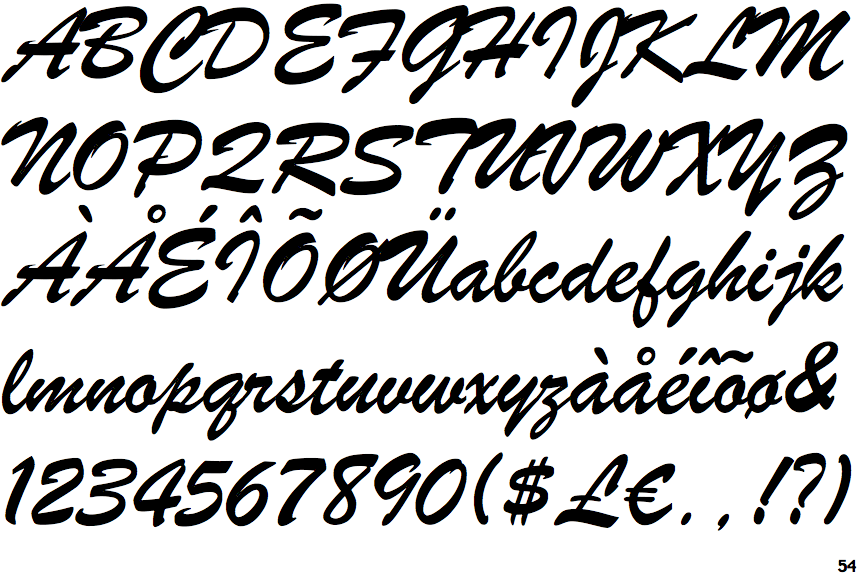
Simple Commonly Used Cursive Fonts In Graphic Design, Alex brush is connected brush script font. It can be used with various designs ranging from greeting card designs to feminine logo.
The Best Free Alternatives to the Most Popular Fonts Popular fonts Most significantly, script fonts typically use cursive letters while handwritten fonts may or may not be in cursive.
It support multilingual more than 100+ language. A handwritten and extended font that's been designed with calligraphic texts. Designers choose slab serif fonts for brand logos, magazines, posters, and websites to attract users. Use cursive fonts as accents to your texts!
Most significantly, script fonts typically use cursive letters while handwritten fonts may or may not be in cursive. Script typefaces are derived from the fluid, and varied strokes that are representative of handwriting. Cursive fonts are a great way to use as accents to add warmth and elegance to your designs. Daniela is a beautiful cursive font featuring a casual and trendy design. Sarcastic Saturday commentary on 5 more commonly used fonts.
Whether you opt to keep it on a solid color or pair it with photography, it brings an air. Cursive fonts are a great way to use as accents to add warmth and elegance to your designs. Designers choose slab serif fonts for brand logos, magazines, posters, and websites to attract users. Also, while script fonts resemble handwriting,. 1420 Gothic Script Fonts.
Helvetica (max miedinger, 1957) helvetica is arguably the most famous typeface on the planet. The font is perfect for everything from label designs to logos and greeting cards. It’s slightly informal but could easily be used for site headers and title graphics for. Script typefaces are derived from the fluid, and varied strokes that are representative of handwriting. J In Cursive Font.
The handmade design of the font gives it a unique look, unlike most other cursive and script fonts. This font showcases subtle textures that give a brush effect and has the letters conjoined for that cursive font look. Brightshine typeface fancy cursive script font. While blackletter fonts are not as commonly used as the other types of fonts today, they still serve a purpose in the right situation. The Best & Worst Fonts for Your Resume.
Arayara script is a modern and elegant font script designed in 2019 for both personal and business use, such as your company logo, branding, flyers, greetings, invitations, book covers, quotes, and more. As a creative myself, i can say that heather oliver is an ideal choice for logo designers that are looking for the best cursive font to use. Cursive (also known as joint writing or running writing, or handwriting) is any style of penmanship in which the symbols of the language are written in a conjoined and/or flowing manner, generally for the purpose of making writing faster. Quenyland is an elegant cursive font you can use to design beautiful invitations and signage. Pin by KarenLee Hampton on Fonts Tattoo fonts cursive, Cursive.
Keywords such as “ handwriting ” and “ script ” would be helpful to search a cursive font rather than the word “cursive” itself. The best cursive fonts in microsoft word are brush script, edwardian script, freestyle script, and gigi. We have 2492 free script, cursive fonts to offer for direct downloading · 1001 fonts is your favorite site for free fonts since 2001 The font also comes with lots of stylistic sets, alternates, and ligatures as well. Beauty of Script Fonts And Useful Fonts Examples Themes Company.
Cursive (also known as joint writing or running writing, or handwriting) is any style of penmanship in which the symbols of the language are written in a conjoined and/or flowing manner, generally for the purpose of making writing faster. Fantasy fonts, as used in css, are primarily decorative though also having character representations. It’s very common, and it features a bold look from its heavyweights. Make stunning work with tiffanky monoline font. Experimenting with Different Fonts One Hour Translation.
Composed of simple shapes like circles and squares, these have an appealing simplicity but are a little less legible in body type. In the arabic, latin, and cyrillic alphabets, many or all letters in a word are connected, sometimes making a word one single complex stroke. Most popular typefaces, best for webfonts. Script in penmanship is a general term that includes calligraphy cursive writing and print writingin terms of typography script typefaces mimic the look. Standard Handwriting Font Service.
It’s Slightly Informal But Could Easily Be Used For Site Headers And Title Graphics For.
This font showcases subtle textures that give a brush effect and has the letters conjoined for that cursive font look. Arayara script is a modern and elegant font script designed in 2019 for both personal and business use, such as your company logo, branding, flyers, greetings, invitations, book covers, quotes, and more. It will disrupt the natural script writing look and feel of the font. Tiffanky is a classic cursive monoline font casual and clean stoke font includes alternate lowercase and opentype features ligatures inspired by the late 80’s sign board.